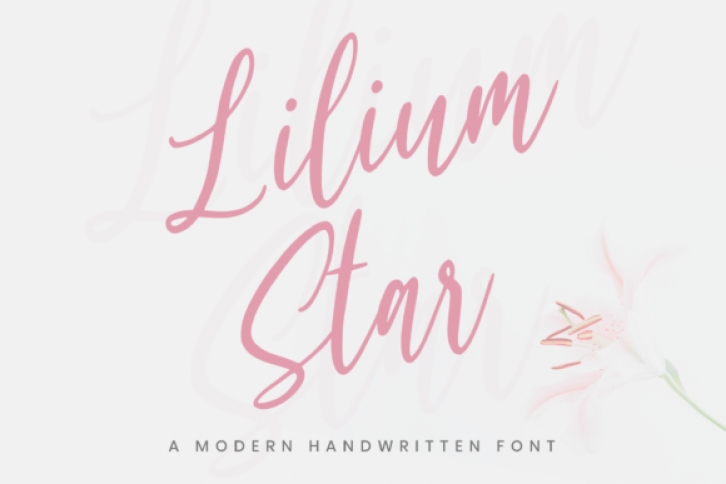
Lilium Star is an incredibly distinct, delicate and timeless handwritten font. It looks stunning on wedding invitations, thank you cards, quotes, greeting cards, logos, business cards and every other design which needs a handwritten touch.